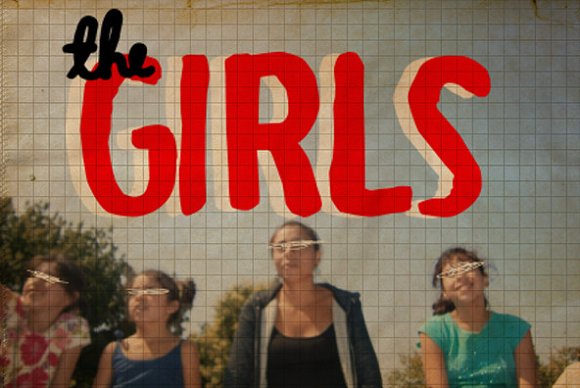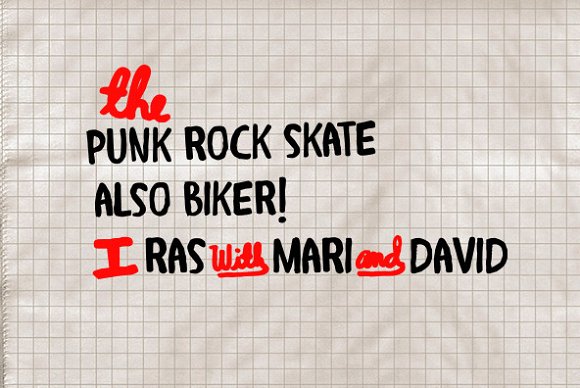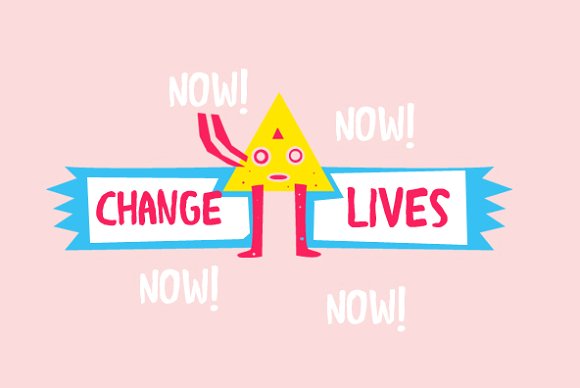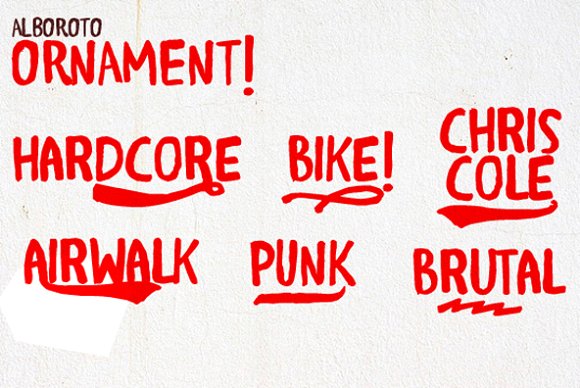
Alboroto Font
About Alboroto Font
Alboroto is a handmade lettering font created by the Rodrigo Typo foundry.
Alboroto supports Cyrillic + Greek letters and comes in 3 variations:
Regular
Words
Ornament